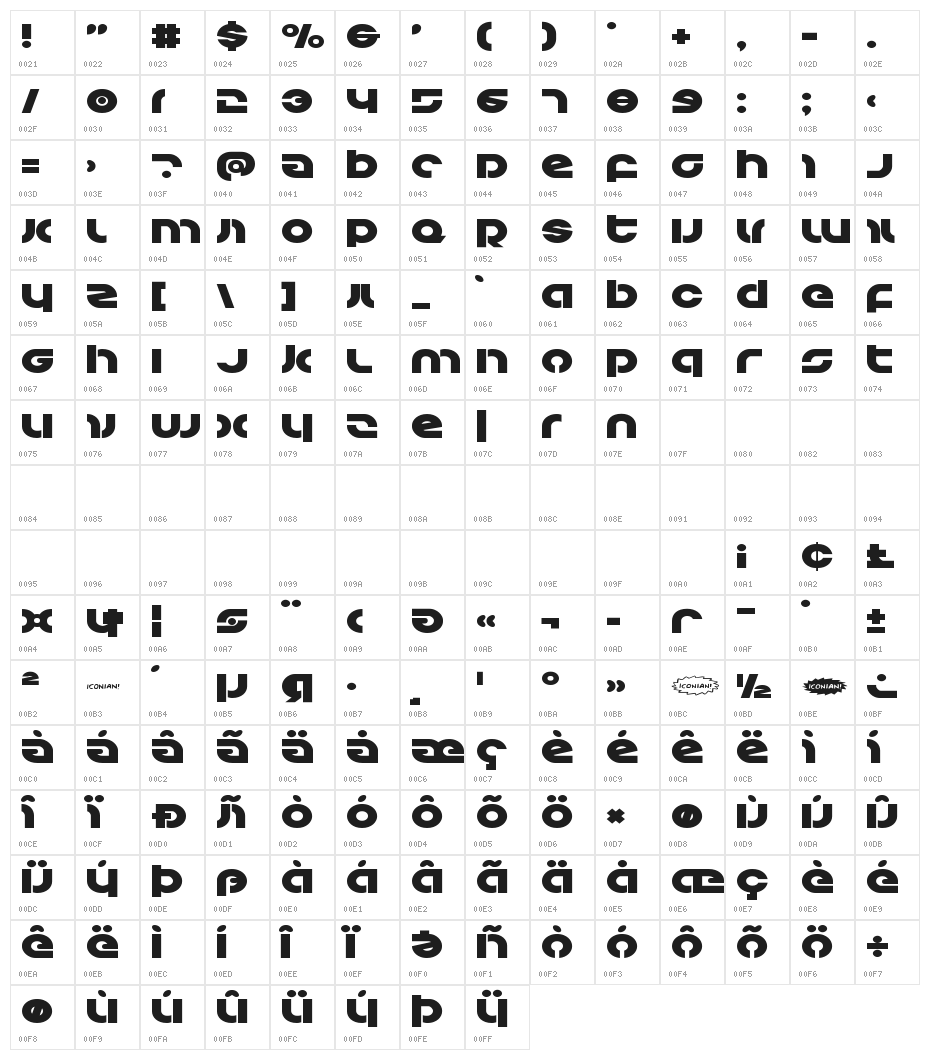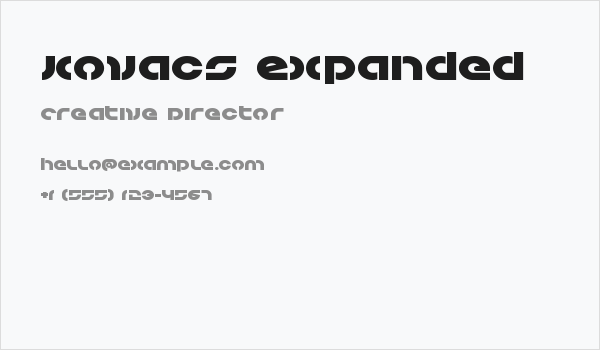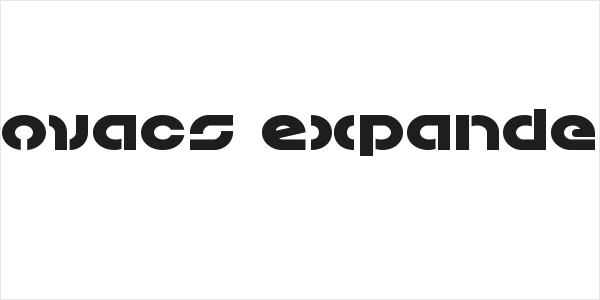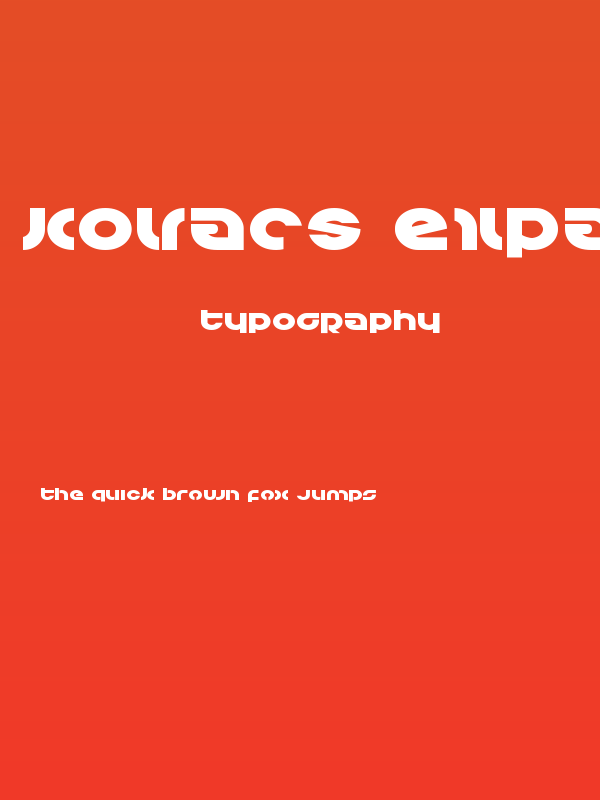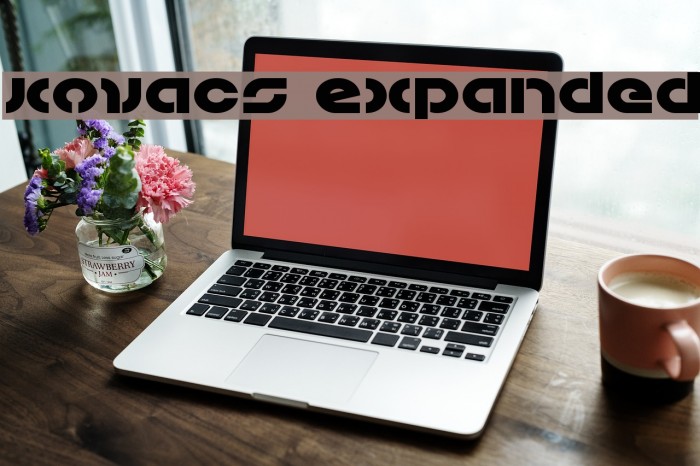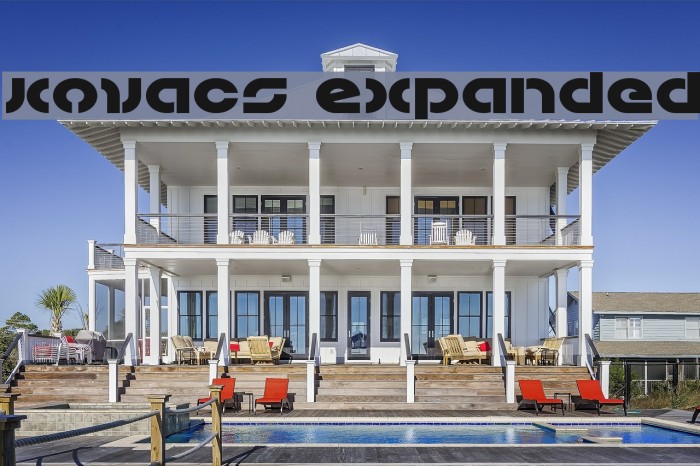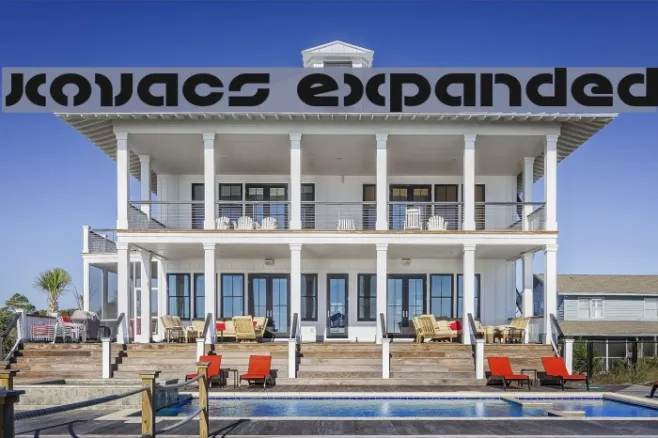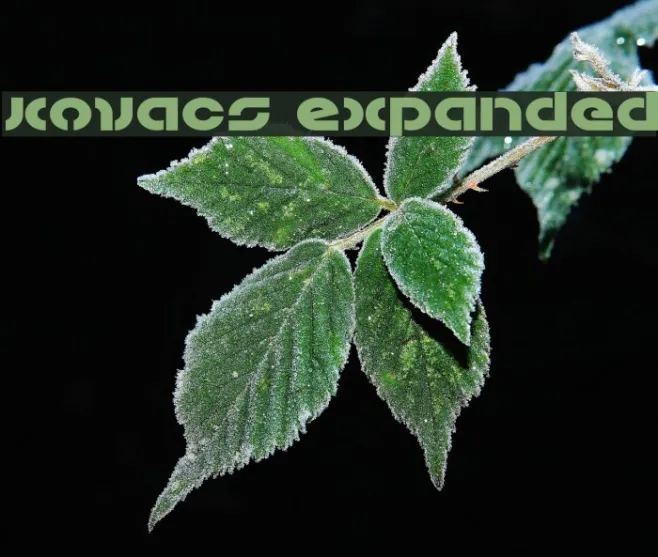
Kovacs Expanded Font
Kovacs Expanded Description
This font features a bold, geometric design with a futuristic aesthetic. The characters are constructed with a combination of straight lines and curves, creating a unique and eye-catching appearance. The uppercase and lowercase letters maintain a consistent style, with a strong emphasis on symmetry and balance. The numbers and special characters are designed to match the overall theme, providing a cohesive look across all elements. The expanded width of the characters gives the font a distinctive presence, making it suitable for impactful designs.
| Proposed Projects | Ideal for sci-fi themed projects, modern branding, technology-related designs, and eye-catching headlines. |